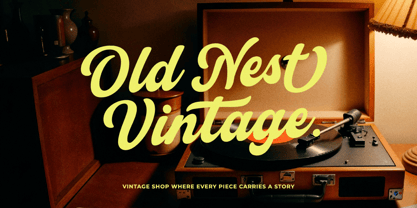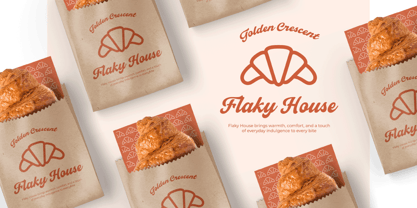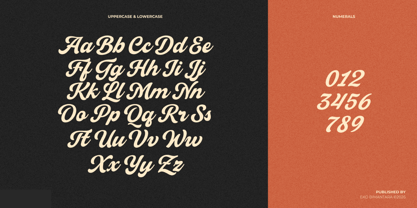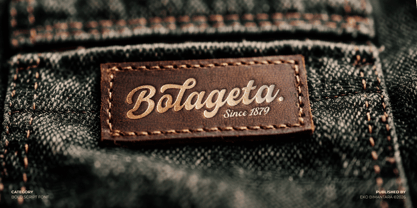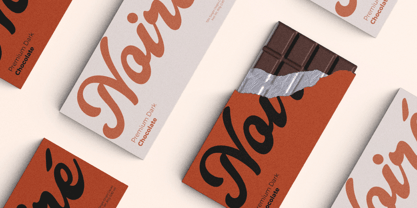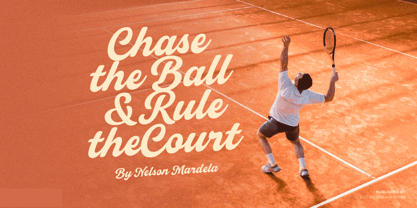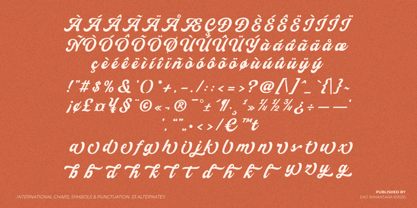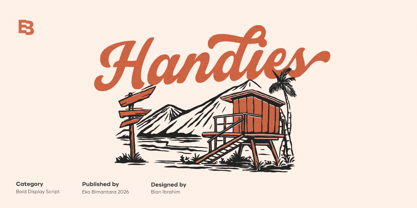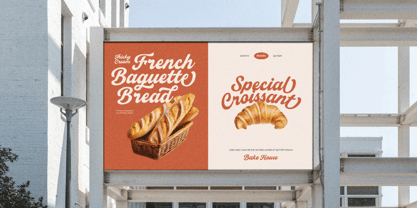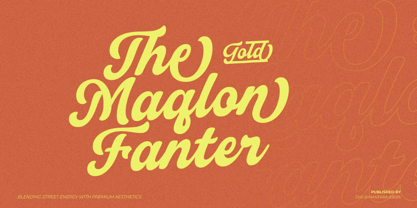
Handies
by Eko Bimantara
The Handies Font Family was designed by Eko Bimantara, Biyono Ibrahim and published by Eko Bimantara. Handies contains 1 styles. More about this family
Handies is a bold display script typeface that captures a lively, retro-inspired personality with a modern handcrafted touch. Its smooth, flowing letterforms are complemented by confident strokes and playful curves, creating a strong visual presence while maintaining a friendly and approachable tone. The subtle texture and organic rhythm evoke a sense of authenticity, making it ideal for branding, signage, packaging, and lifestyle-oriented designs. Handies shines in large-scale applications, where its expressive character and dynamic movement bring warmth, energy, and a distinctive handcrafted charm to any composition.